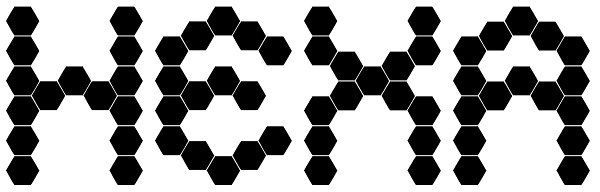
Hexa
What was the inspiration for designing the font? My inspiration is experimental music Usage recommendations: Name DJs, conceptual apparatus, modern machines, computers, Hybrid etc.
Hexa Font